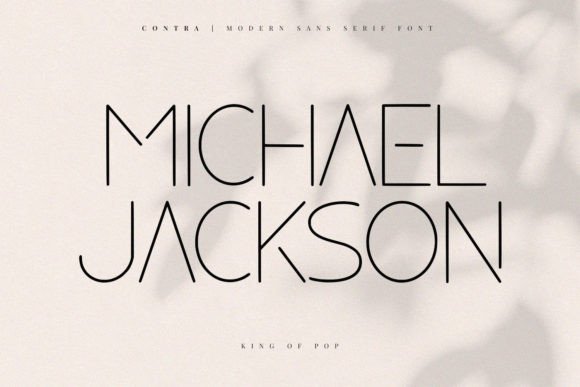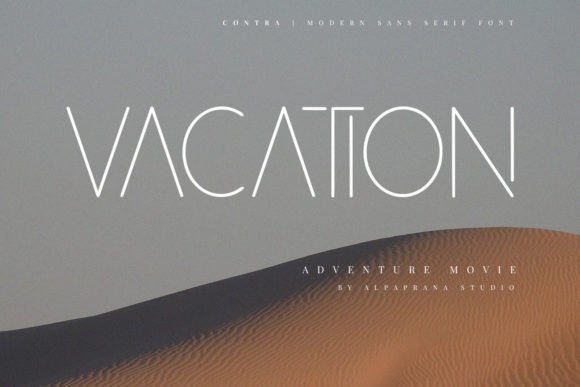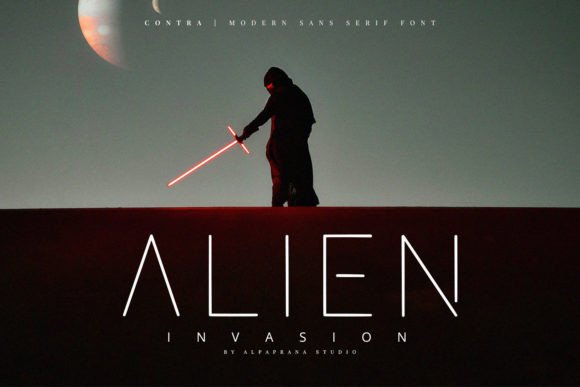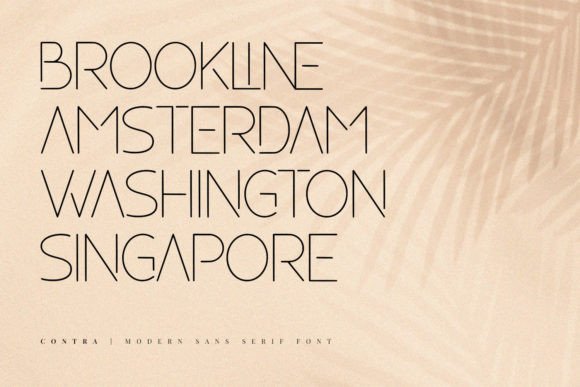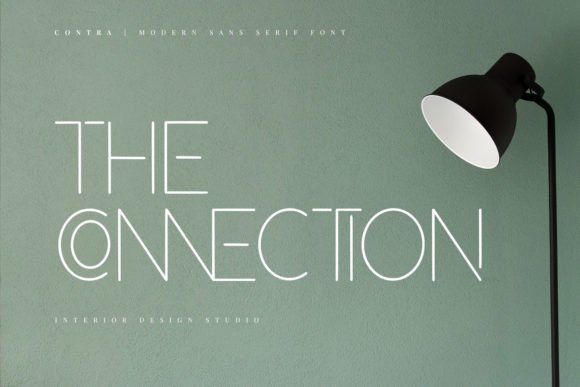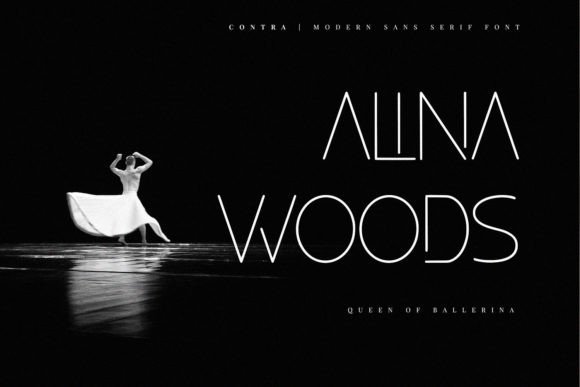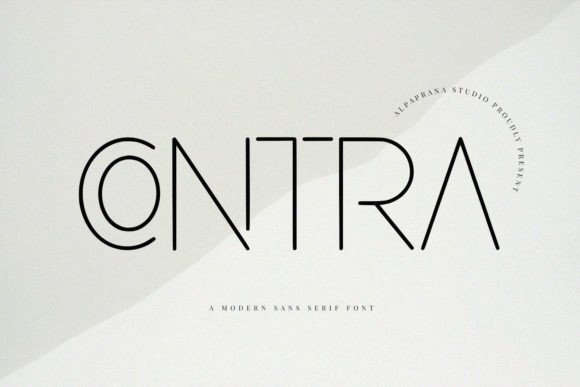
Introducing Contra Font: The Perfect Blend of Modernity and Casual Elegance
In the world of typography, fonts play a crucial role in conveying the tone and personality of a brand or design project. For designers and crafters looking for a modern sans serif font that exudes natural and casual feels, Contra Font is an excellent choice. In this article, we’ll dive into the features and benefits of Contra Font, and explore its various applications in design projects.
What is Contra Font?
Contra Font is a contemporary sans serif font designed to provide a fresh and approachable look to various design projects. Its clean lines, subtle curves, and natural feel make it an ideal choice for designers seeking a modern yet casual typography solution. Contra Font is perfect for creating visually appealing designs that require a touch of sophistication and elegance.
Key Features of Contra Font
- Modern sans serif design: Contra Font boasts a sleek and modern sans serif design that is both clean and elegant.
- Natural and casual feel: The font’s subtle curves and rounded edges give it a friendly and approachable feel, making it perfect for designs that require a personal touch.
- Highly versatile: Contra Font is suitable for a wide range of design projects, from branding and logo designs to lettering, logotype, and more.
- Easy to read: The font’s clear and legible design ensures that it remains easy to read, even at smaller font sizes.
Applications of Contra Font
Contra Font’s versatility makes it an excellent choice for various design projects, including:
- Branding and logo designs: Create a lasting impression with Contra Font’s modern and sophisticated design.
- Lettering and logotype: Add a personal touch to your lettering and logotype designs with Contra Font’s natural and casual feel.
- Clothing and fashion: Use Contra Font to create stylish and eye-catching designs for clothing, shopping bags, and other fashion-related projects.
- Posters and magazines: Add a touch of modernity to your posters and magazines with Contra Font’s clean and elegant design.
- Packaging and product design: Create visually appealing packaging and product designs that stand out on store shelves.
- T-shirts and apparel: Design stylish and comfortable t-shirts and apparel with Contra Font’s casual and approachable feel.
- Book covers and photography: Use Contra Font to create stunning book covers and photography designs that capture the essence of the content.
- Special events and exhibitions: Create memorable designs for special events and exhibitions with Contra Font’s modern and sophisticated design.
Why Choose Contra Font?
With so many fonts available, why choose Contra Font? Here are a few reasons:
- Unique and distinctive design: Contra Font’s modern sans serif design sets it apart from other fonts, making it an excellent choice for designers looking for a unique typography solution.
- High-quality and legible: Contra Font is designed to be clear and legible, ensuring that your designs are easy to read and understand.
- Versatile and adaptable: Contra Font is suitable for a wide range of design projects, making it an excellent addition to any designer’s font library.
Contra Font is an excellent choice for designers and crafters looking for a modern sans serif font with natural and casual feels. Its versatility, legibility, and unique design make it perfect for various design projects, from branding and logo designs to lettering, logotype, and more. Whether you’re working on a personal project or a client’s design brief, Contra Font is sure to impress.